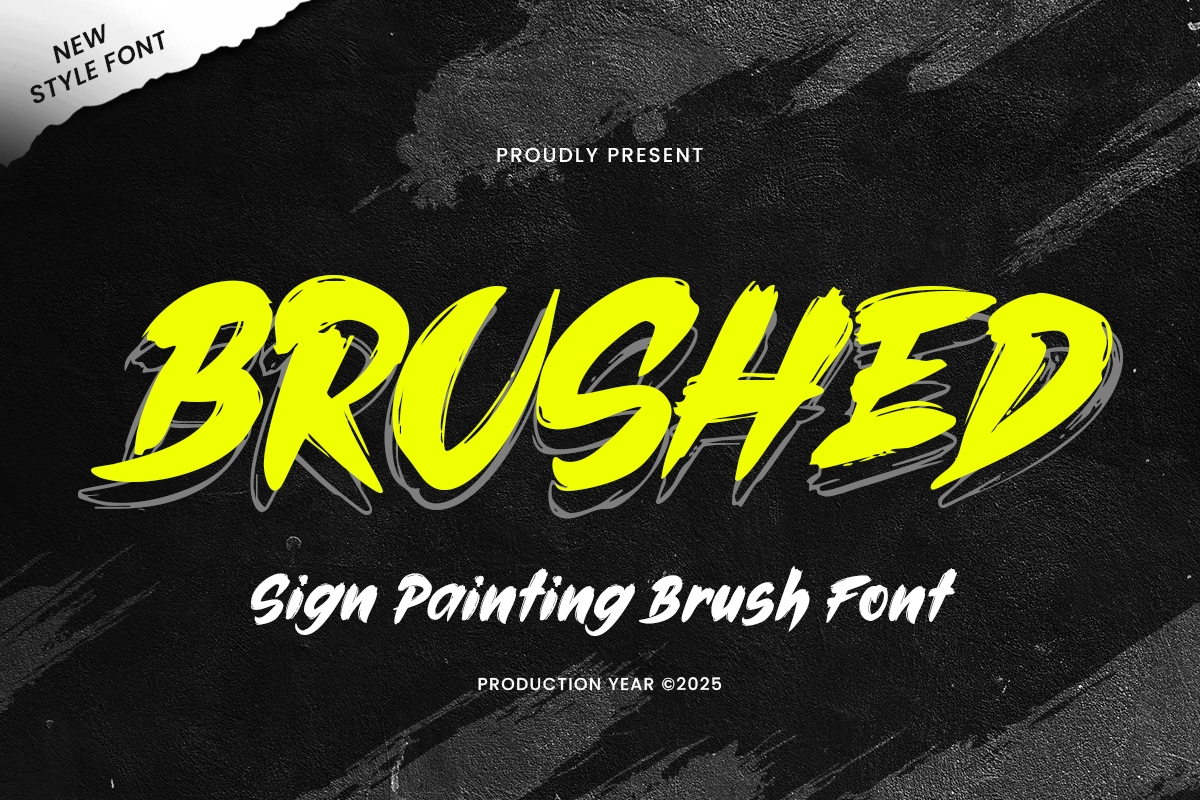
Brushed
-Sign Painting Brush Font
Brushed - Sign Painting Brush Font
BRUSHED is a sign painting brush font crafted to bring an authentic, hand-painted look to your creative projects. Ideal for logos, posters, signage, branding, and social media designs, it features dynamic brush strokes that mimic real paintbrush movement.
With its expressive, flowing letterforms, BRUSHED adds energy and personality to both print and digital designs, perfect for projects that require a handcrafted and artistic style.
BRUSHED – Sign Painting Brush Font Features
• Bold and expressive brush letterforms
• Available with Regular and Outline Version
• Perfect for signage, logos, posters, and creative projects
• OpenType features for extra versatility